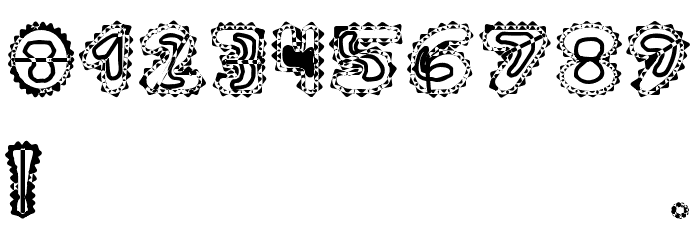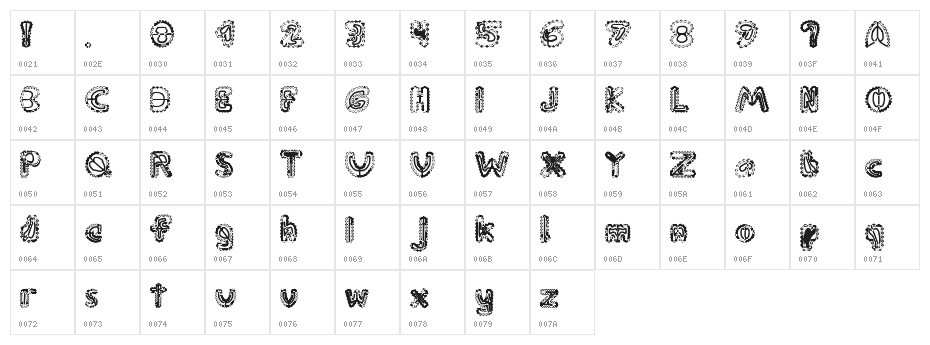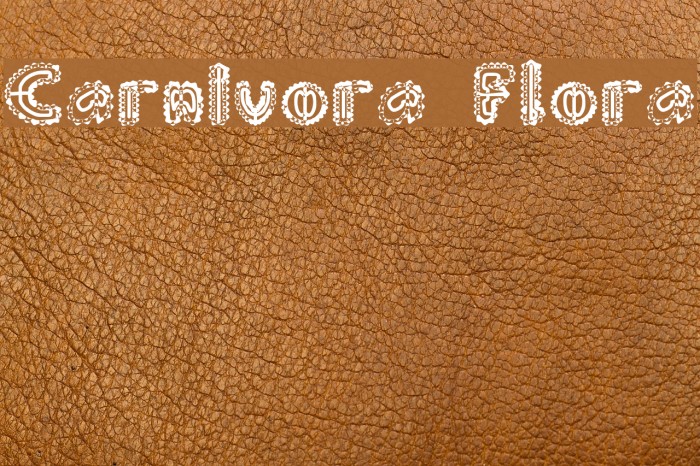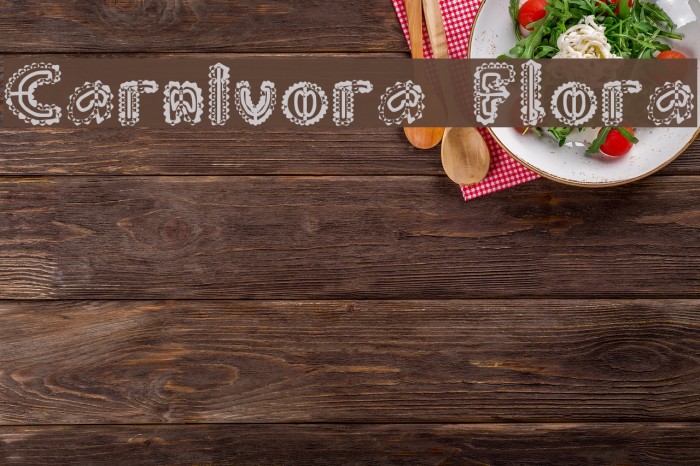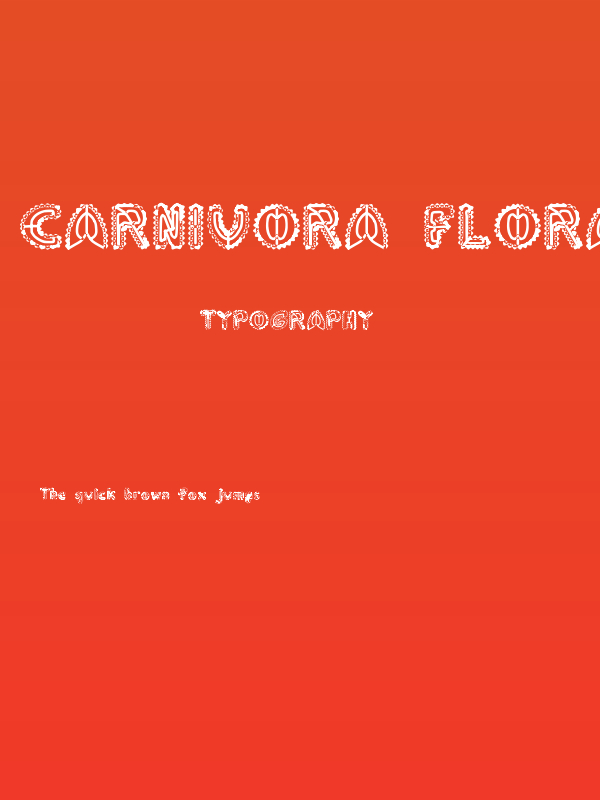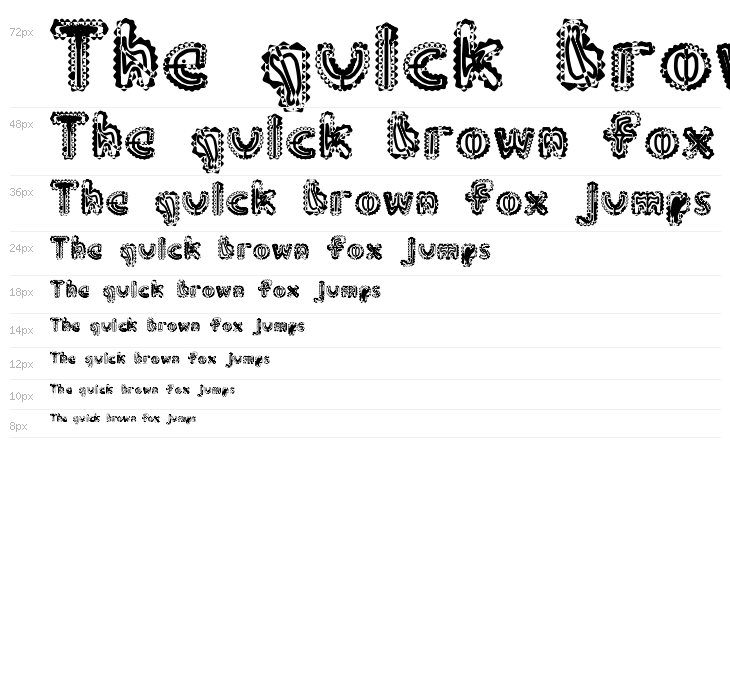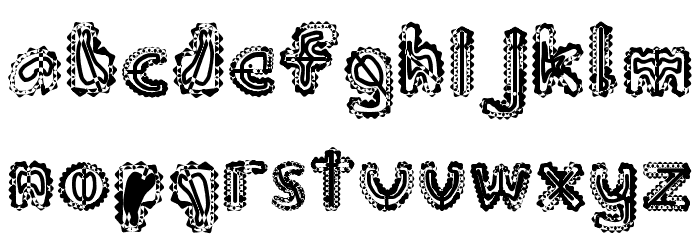
Carnivora Flora Font
Carnivora Flora Description
This font features a highly decorative and intricate design, reminiscent of organic and floral patterns. Each character is adorned with detailed embellishments, creating a unique and eye-catching appearance. The letters are bold and have a playful, whimsical quality, making them stand out in any design. The font combines elements of nature with a modern twist, resulting in a visually striking typeface that captures attention. Its elaborate style is perfect for creative projects that require a touch of artistry and flair.